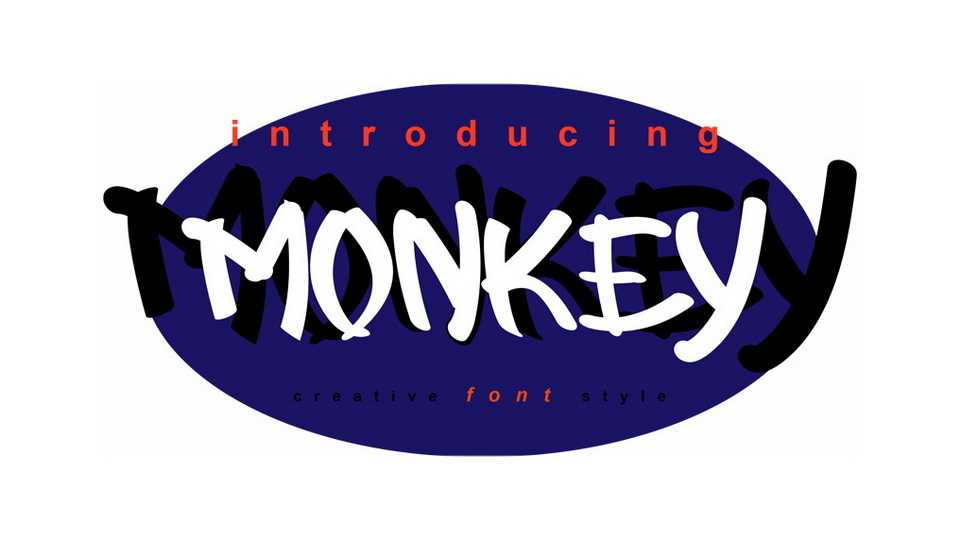
Download Monkey font, a hand lettered marker typeface with a quirky and playful vibe. Monkey font is great for styling posters, social media, quotes and other design collateral with a friendly look.
Designer: Indra Gunawan